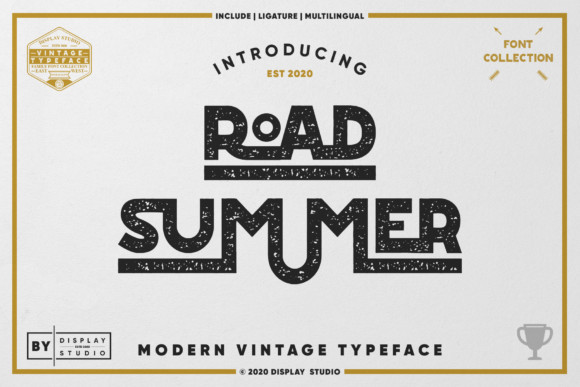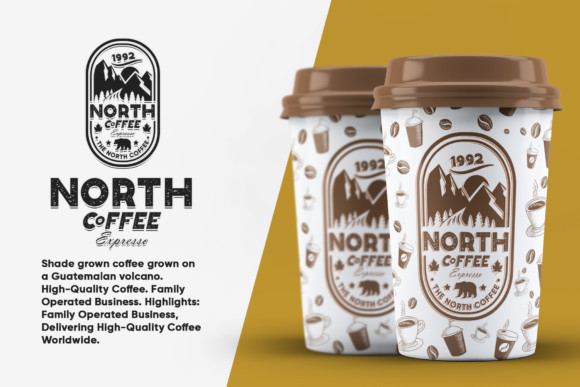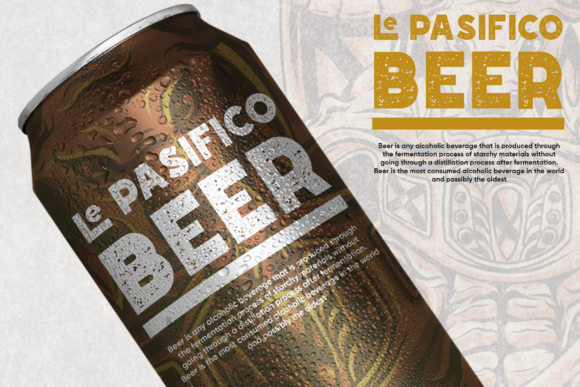
Road Summer Font
Road Summer is a bold and chunky lettered display font. Masterfully designed to become a true favorite, this font has the potential to bring each of your creative ideas to the highest level!